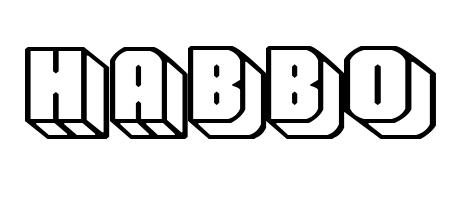
Habbo
By Juanplav
Habbo: A bold, playful sans-serif font with a distinct three-dimensional effect. Each letter is rendered as a cube, suggesting depth and solidity. The clean lines and consistent thickness create a modern yet retro feel, reminiscent of 80s video game graphics or building block aesthetics. The overall impression is one of energetic, youthful fun.